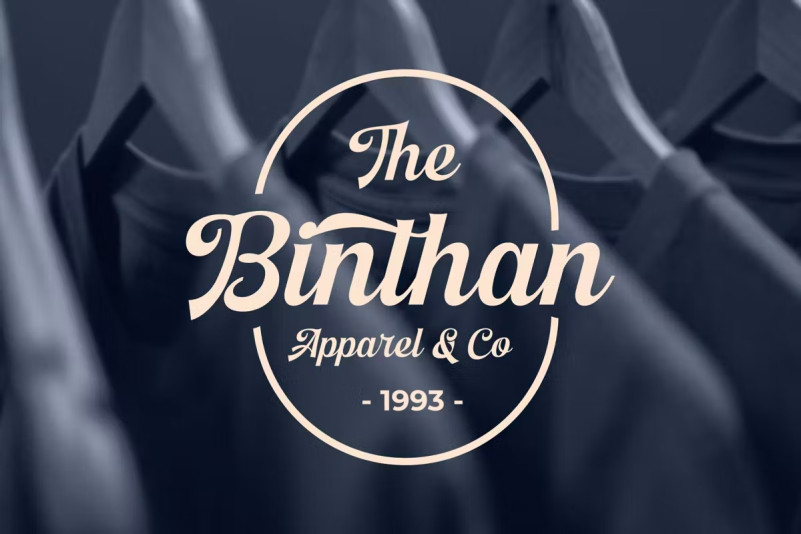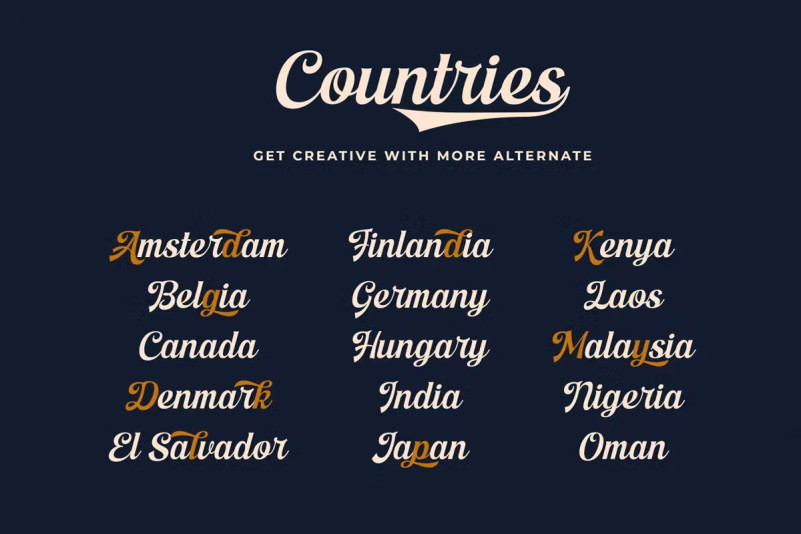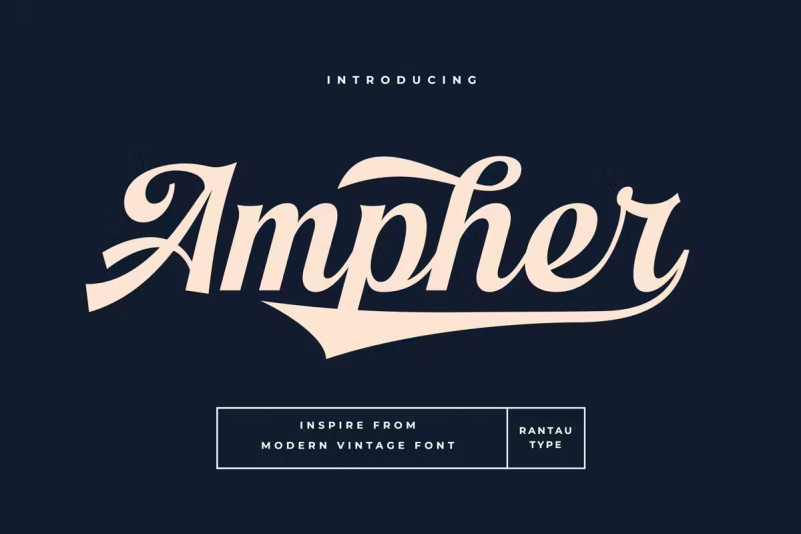
Ampher Font
Ampher Font is a script font with vintage looks. It’s inspired by modern vintage & retro style.
Ampher It come with a unique shape and make you design more vintage. Ideal for logos, handwritten quotes, product packaging, header, poster, merchandise, social media, greeting cards & more. Ampher here to make you design to next level!!